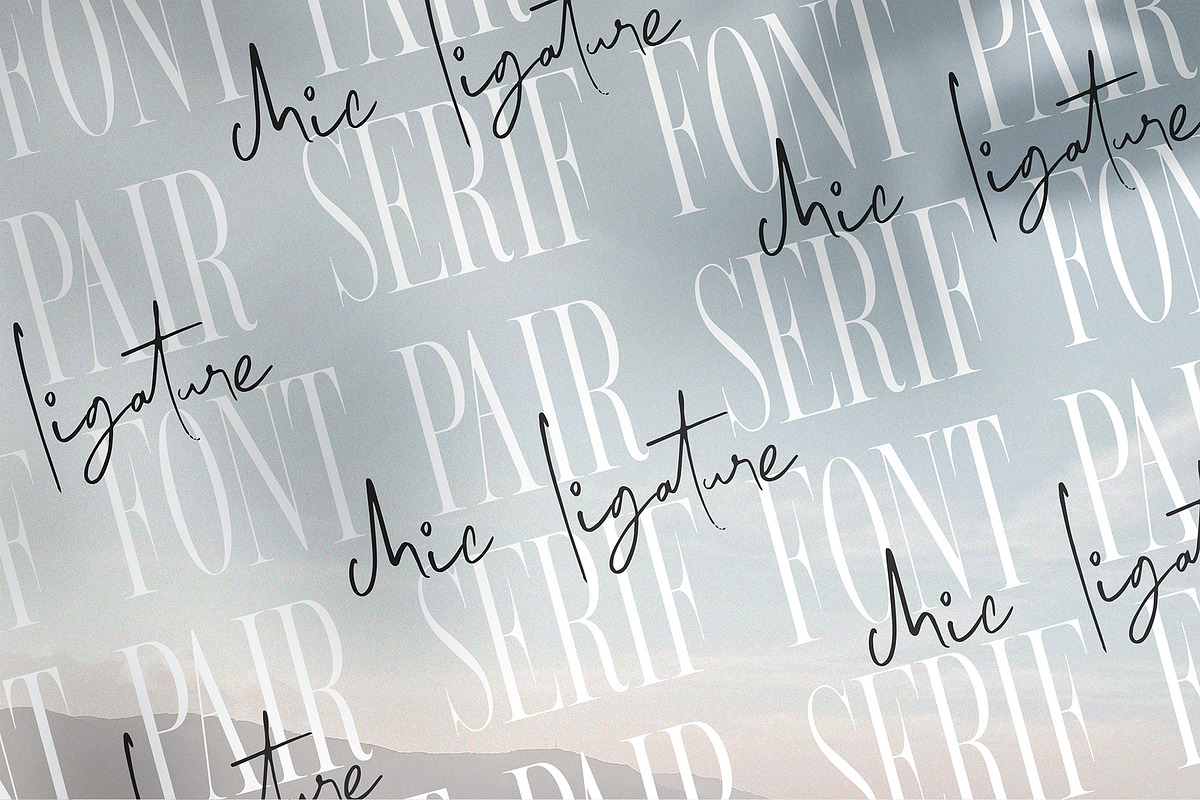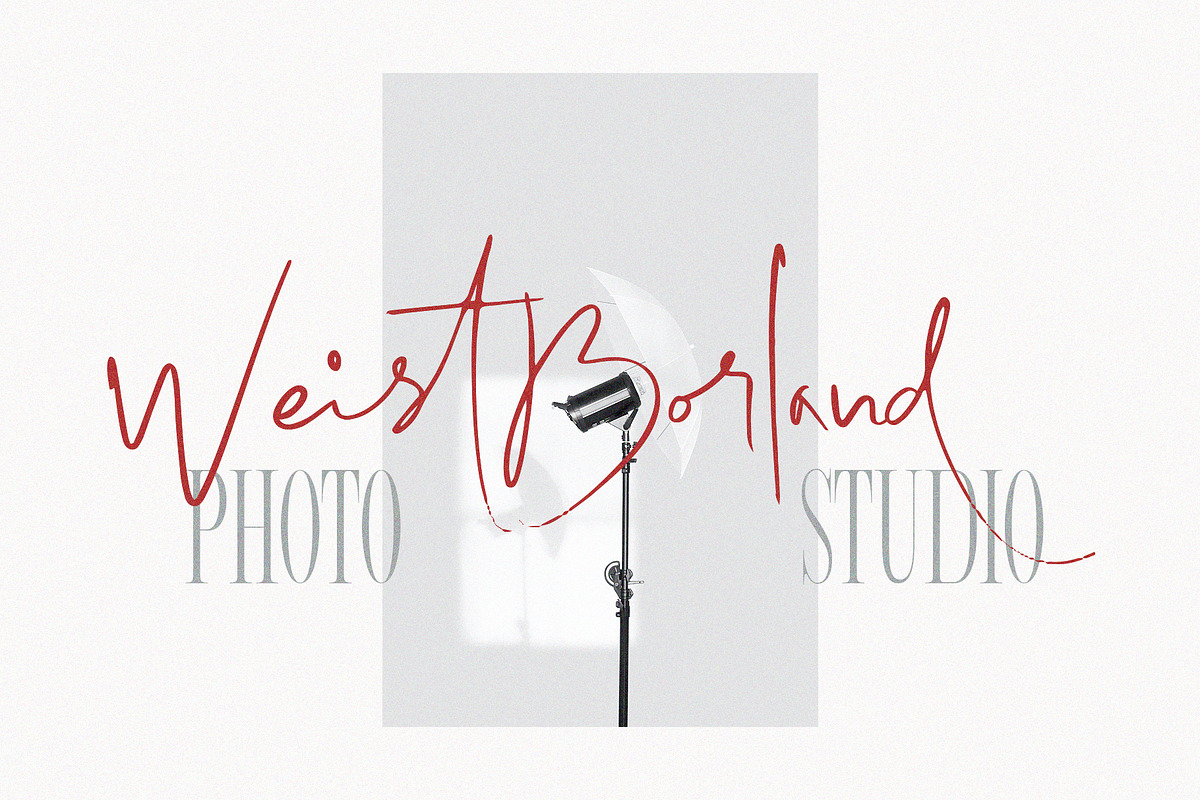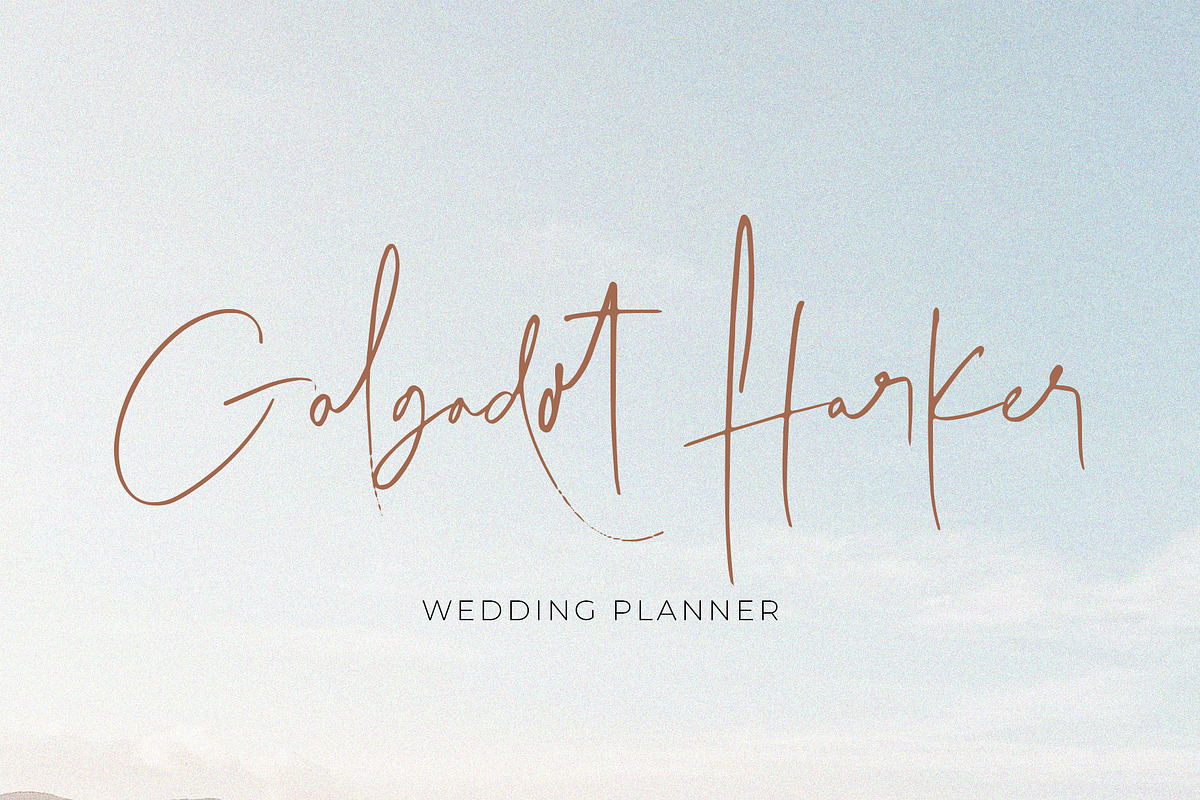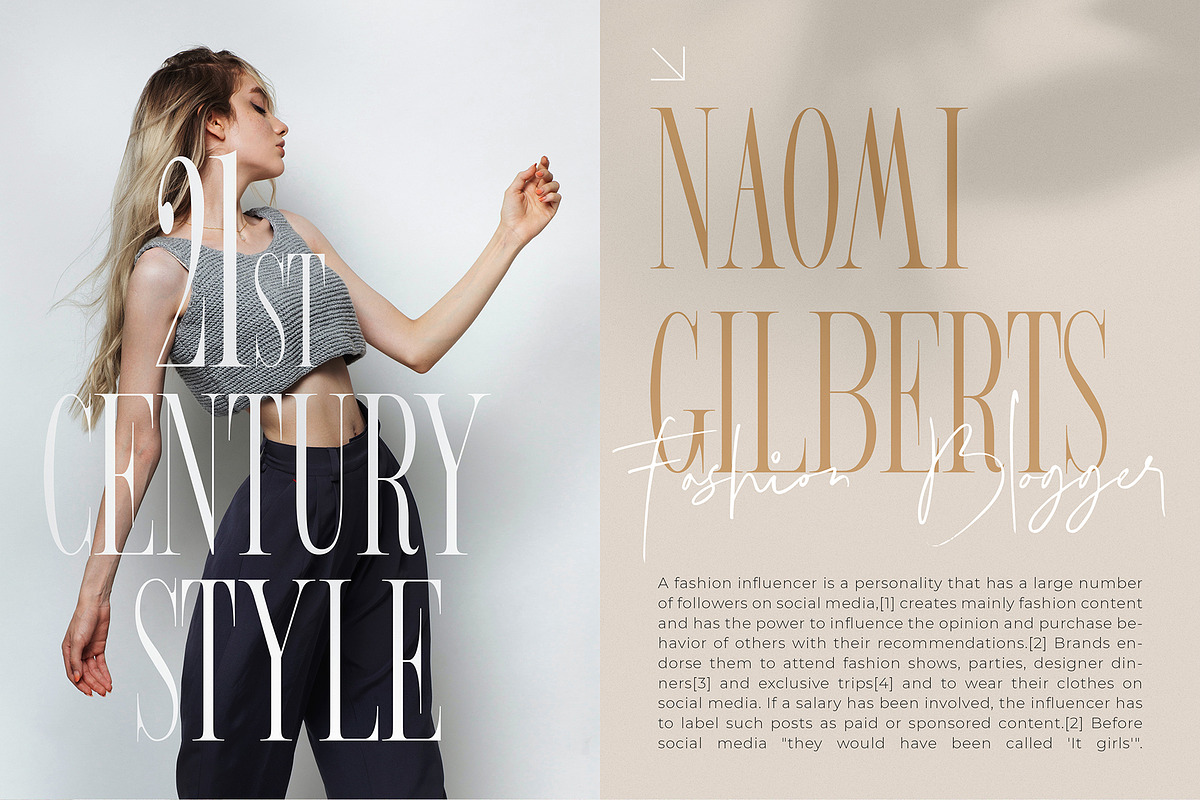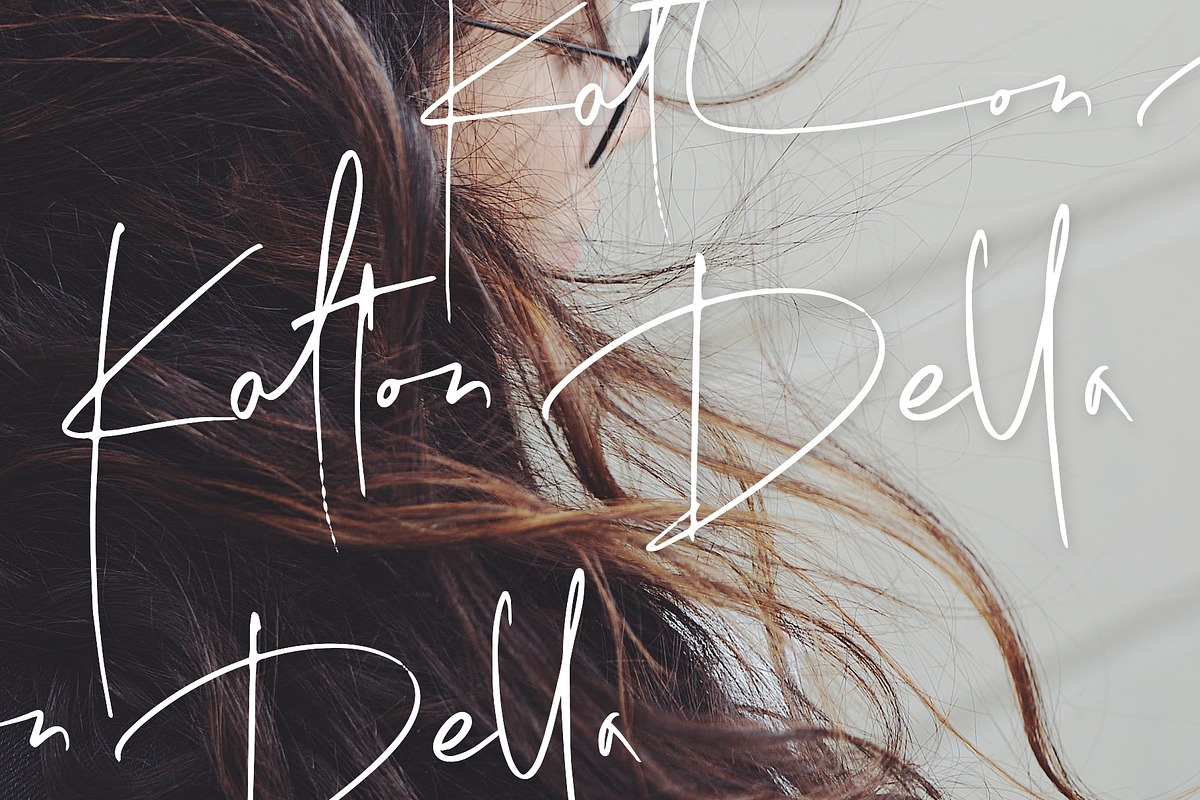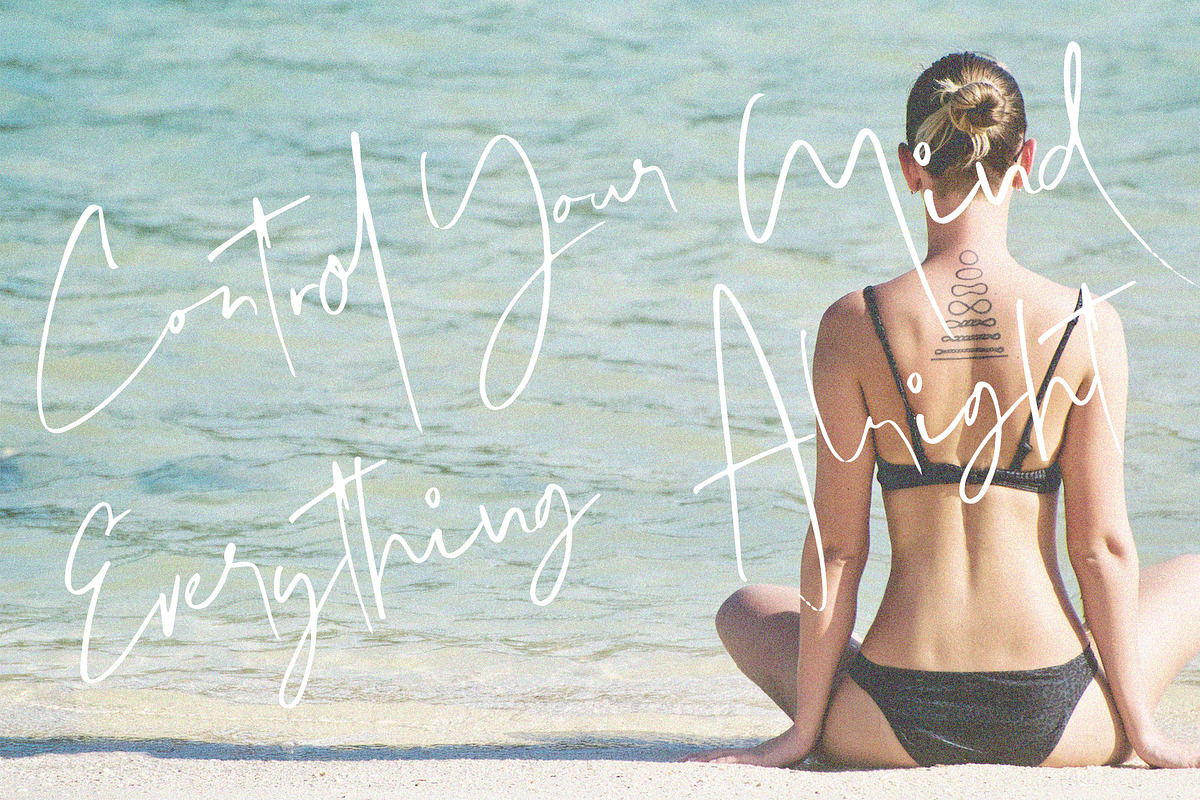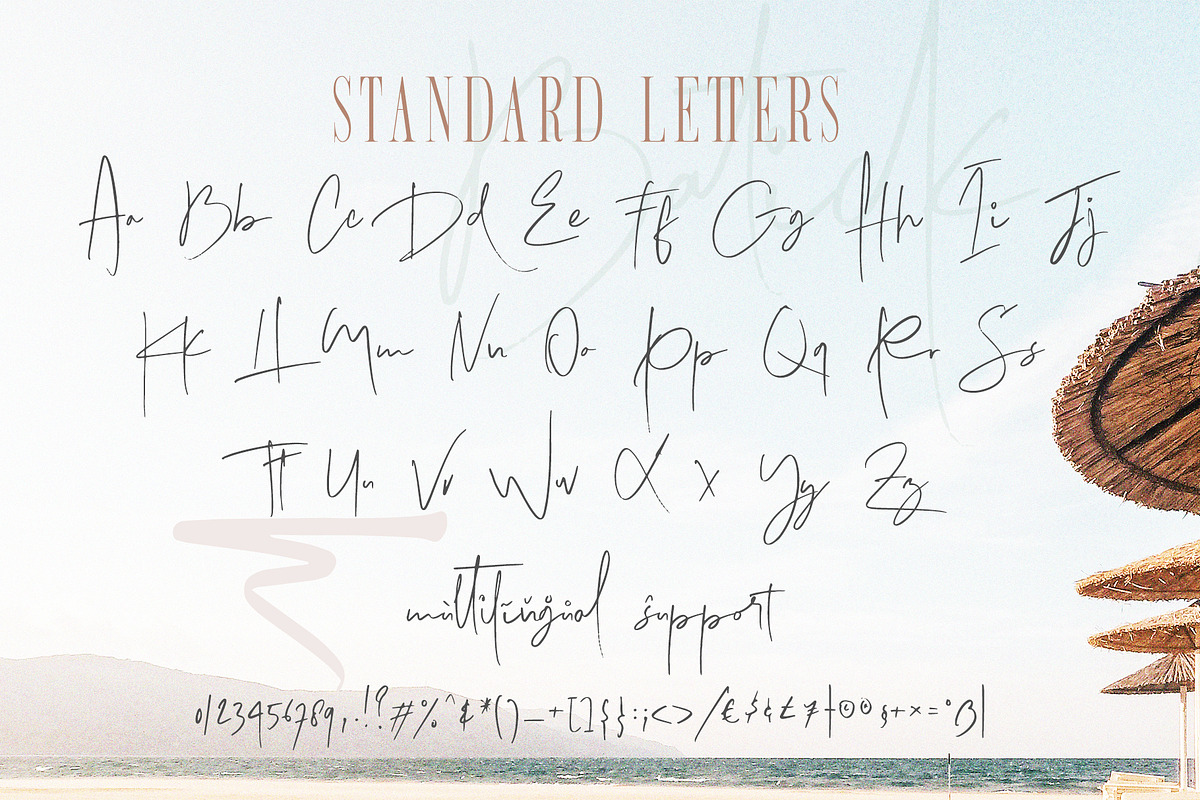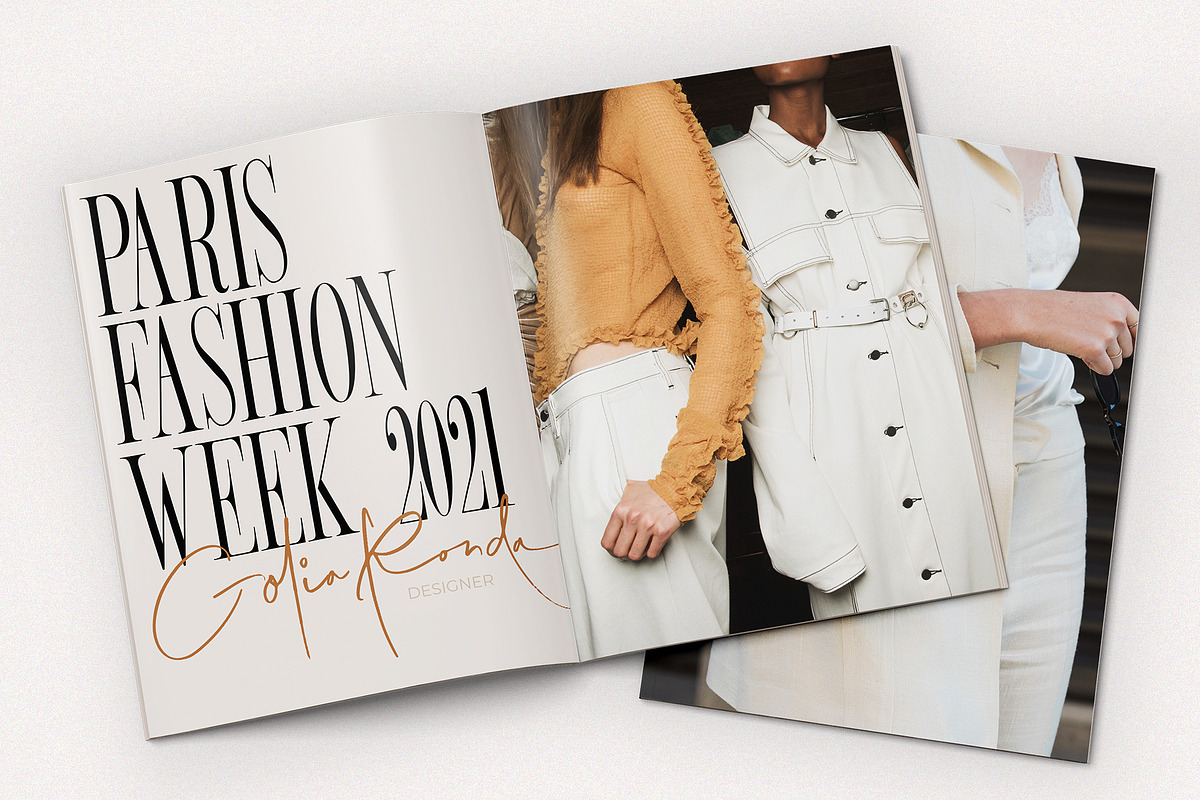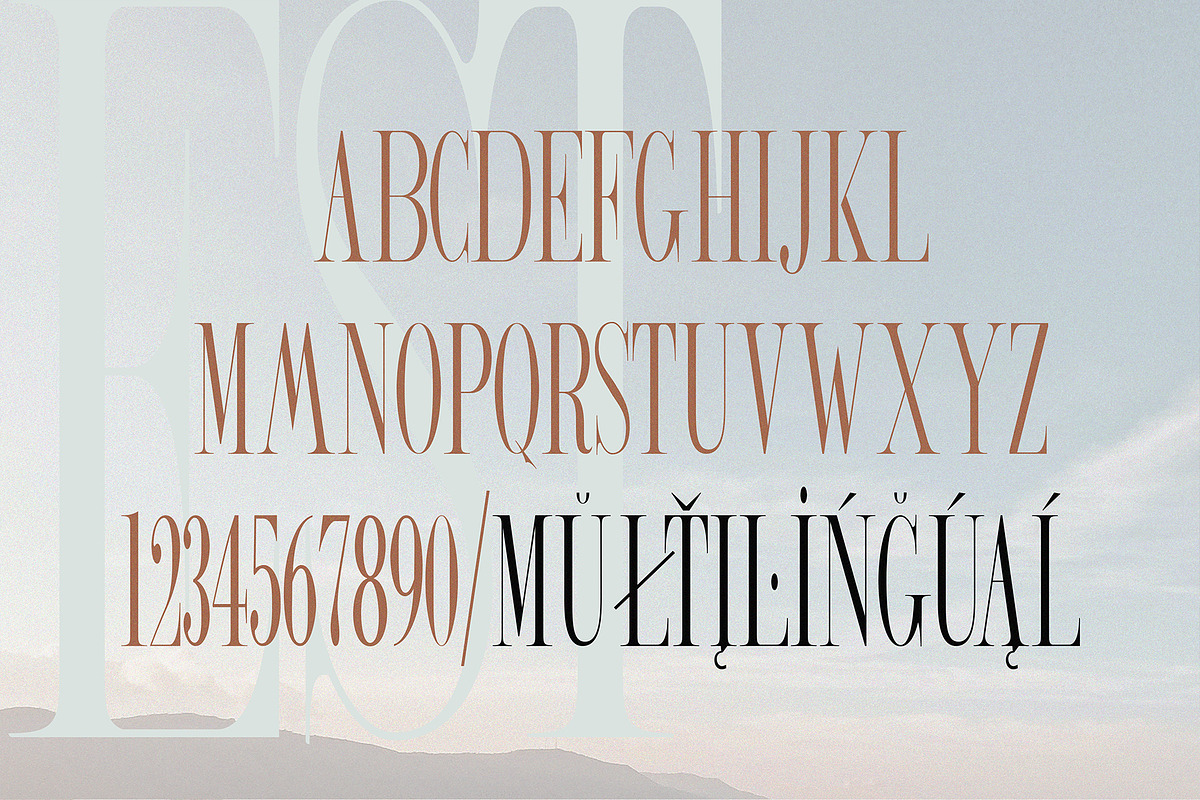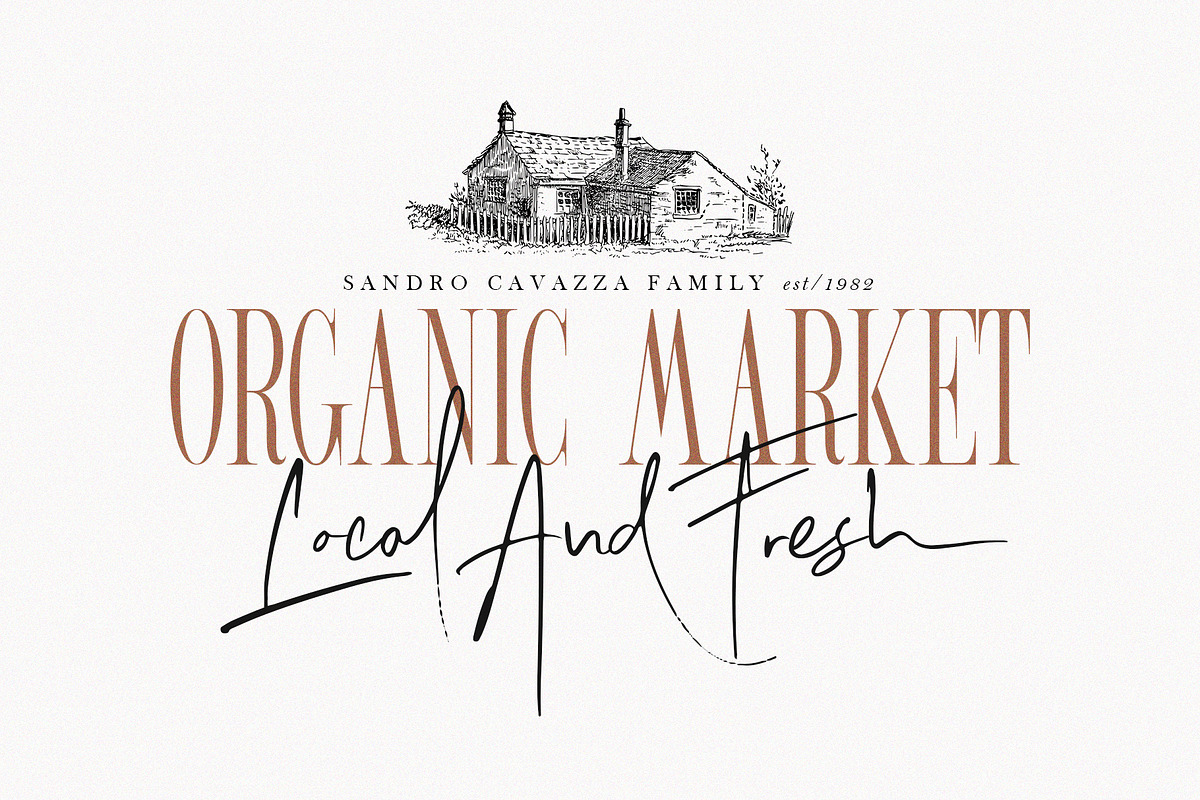
Batick Rodist | Font Duo
Batick Radist collection is a luxury and elegant font pair that will bring a unique style and a trendy look to your designs.
Comes with Serif Typeface and Chic handwritten with trending ligatures and special character, this will make Batick Radist Collection usable in all design projects and work perfectly to pair with any other font.
With duo styles you can create design such as wedding media, book covers, greeting cards, logos, branding, business cards and certificates, even for any design work that requires a classic, formal or luxurious look.
Try Batick Radist collection, Enjoy the richness of OpenType features and let her fun and elegant excitement make you happy and enhance your creativity! You can use this font very easily.
• Included multiligual support and special ligatures